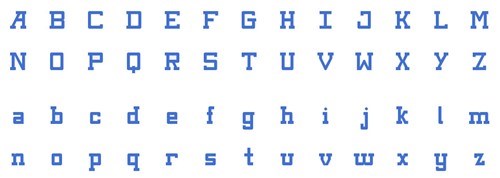
Denver Blues Embrilliance Embroidery Font - Classic Block Style - BX font by Unicorn Creatives and other embroidery fonts available at EmbroideryDesigns.com.
Unicorn Creatives is happy to present Denver Blues Embrilliance Embroidery Font - Classic Block Style - BX font machine embroidery font which has Classic block embroidery font 'Denver Blues' in bold, solid dark blue, ideal for stitching on jackets and tote bags. Available in BX font and Embrilliance formats. included. If you would like to view more embroidery fonts and alphabets please search our embroidery fonts page.
Denver Blues Embrilliance Embroidery Font - Classic Block Style - BX font